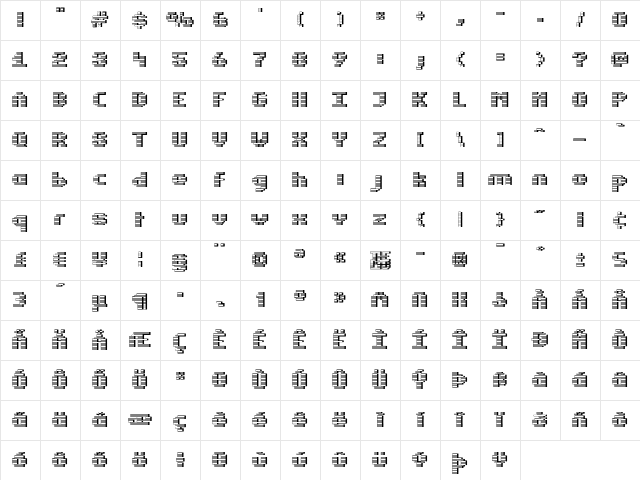
Estrogen-Wall Roman Free Font
Estrogen-Wall Roman
Design Context for Estrogen-Wall
Estrogen-Wall is a composed and adaptable typeface that performs quietly and consistently across a wide range of design contexts.